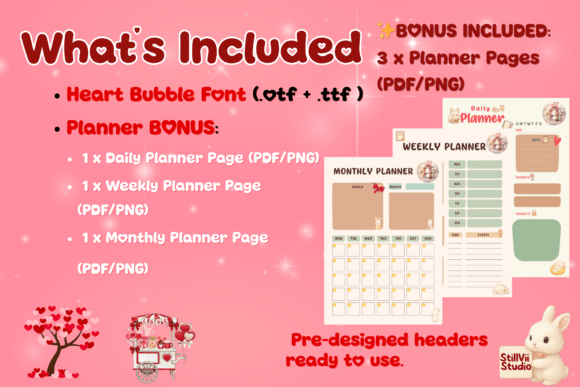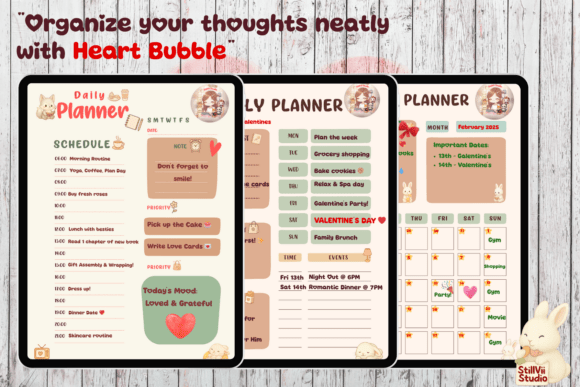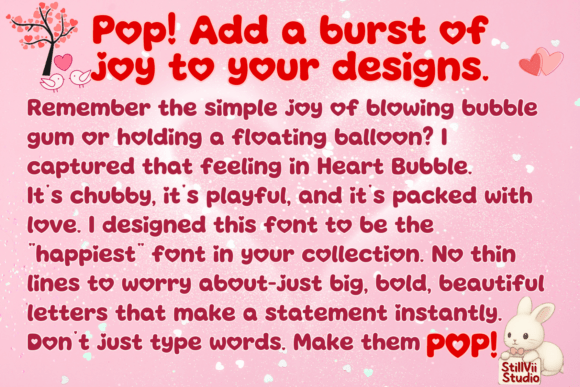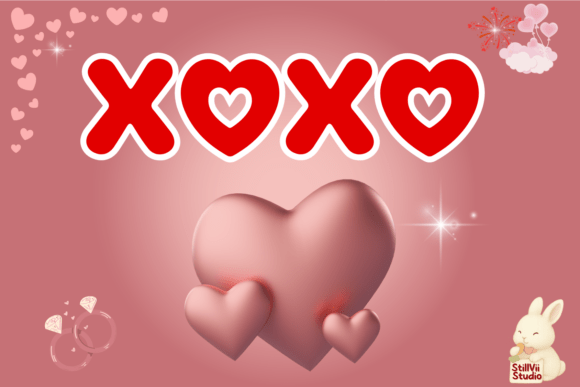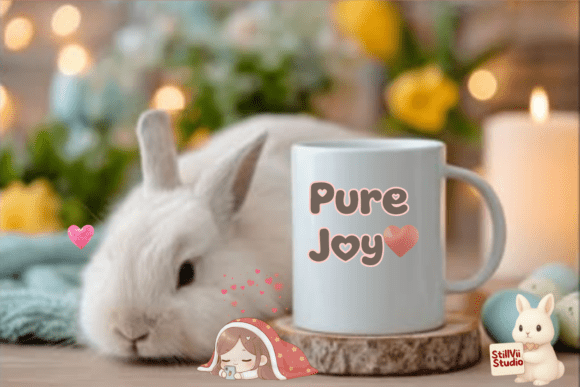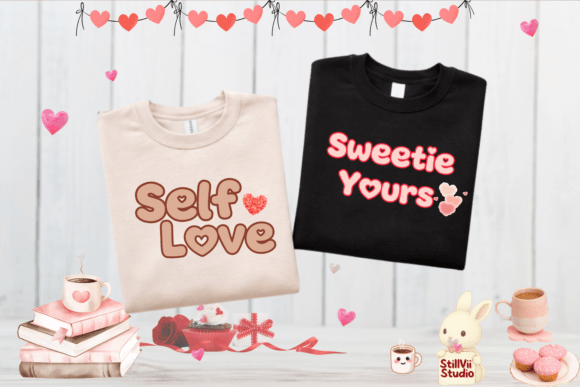
Don’t just type words… Make them POP! Heart Bubble Font for Valentine’s Day & Beyond!
Are you tired of using the same old fonts for your creative projects? Look no further! Introducing the Heart Bubble Font, a cute and bubbly typeface that features adorable heart cutouts inside chunky letters. This bold retro font is perfect for Cricut vinyl and Silhouette users, and it’s sure to add a playful touch to your designs.
The Ultimate Font for Valentine’s Day Projects
Valentine’s Day is just around the corner, and what better way to show your love and appreciation than with a custom design featuring a heart-filled font? The Heart Bubble Font is the perfect choice for creating adorable Valentine’s Day cards, gift tags, and decorations. Its unique and playful design will surely make your projects stand out.
A Versatile Font for Various Projects
The Heart Bubble Font is not just limited to Valentine’s Day projects. Its versatility makes it suitable for a wide range of designs, including:
- Y2K Stickers: Add a fun and playful touch to your stickers with this cute font.
- Sublimation T-shirts: Create eye-catching and unique designs for your sublimation t-shirts.
- Wedding Invitations: Use this font to add a romantic and whimsical touch to your wedding invitations.
- Kids’ Crafts: This font is perfect for creating fun and engaging crafts for kids.
What Makes Heart Bubble Font Special?
The Heart Bubble Font is more than just a font – it’s an experience. Here are some of its unique features:
- Chunky Letters: The font features thick and bold letters that are perfect for making a statement.
- Built-in Hearts: The heart cutouts inside the letters add a playful and whimsical touch to your designs.
- 3D Effect: The font’s design creates a fun 3D effect that adds depth and visual interest to your projects.
If you’re looking for a fun and playful font that will add a touch of whimsy to your designs, look no further than the Heart Bubble Font. With its unique features, versatility, and compatibility with various devices and software, this font is perfect for designers, crafters, and DIY enthusiasts. So why settle for ordinary fonts when you can make your words POP with the Heart Bubble Font?